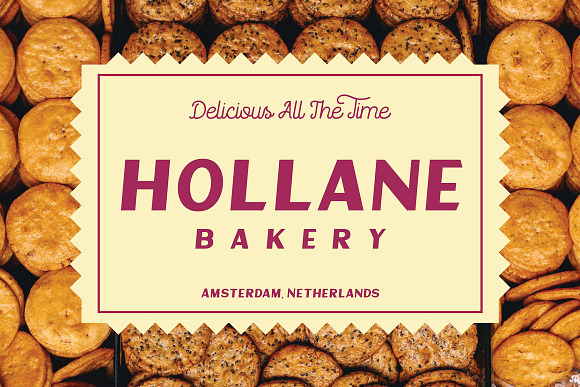
VT Sunmore - Elegant Font
VT Sunmore Elegant Font is perfect for luxury brand logos, high-end fashion magazines, sophisticated wedding invitations, premium product packaging, upscale restaurant menus, elegant stationery designs, luxury hotel branding, fine jewelry advertisements, exclusive event materials, and refined corporate communications.
What makes VT Sunmore Elegant Font so exciting is its exquisite refinement and graceful sophistication that instantly elevates any design project with timeless elegance and luxurious appeal that resonates with discerning audiences who appreciate quality and distinction. This typeface embodies the essence of understated luxury through its perfectly balanced letterforms and refined details that communicate exclusivity without ostentation. The font's captivating charm stems from its ability to convey both classical beauty and contemporary relevance, making it ideal for brands seeking to establish premium positioning while maintaining broad appeal across sophisticated market segments.
VT Sunmore Elegant Font comes in multiple weights and styles including Light, Regular, Medium, Bold, and their corresponding Italic variations, along with elegant ligatures, stylistic alternates, and decorative elements that provide extensive customization possibilities for luxury design applications.
Whether you're developing prestigious brand identities, creating sophisticated marketing materials, or designing exclusive event communications, VT Sunmore Elegant Font Free Download delivers unmatched elegance and luxury positioning. This distinguished typeface excels across all premium applications, from intimate personal stationery to grand architectural signage, maintaining its elegant character while ensuring perfect legibility. The font's meticulously crafted letterforms feature refined proportions and subtle details that create text with genuine luxury appeal and timeless sophistication.
Luxury brand consultants and high-end design agencies consistently select VT Sunmore Elegant Font for clients requiring sophisticated positioning and premium market appeal. Its refined styling makes it particularly effective for luxury goods, high-end services, exclusive venues, and aspirational brands targeting affluent demographics who value quality and elegance. The font's versatile elegance and sophisticated character create immediate recognition of premium positioning while communicating values of refinement, exclusivity, and superior craftsmanship that are essential for luxury market differentiation and brand prestige.